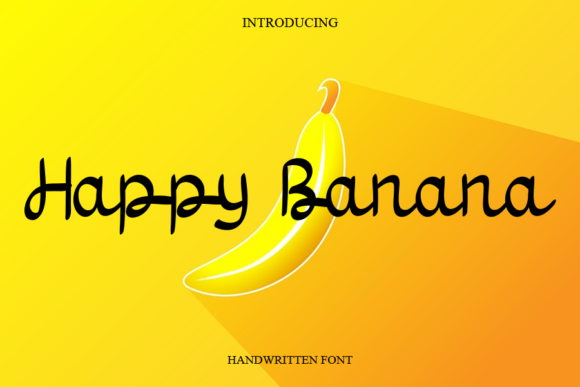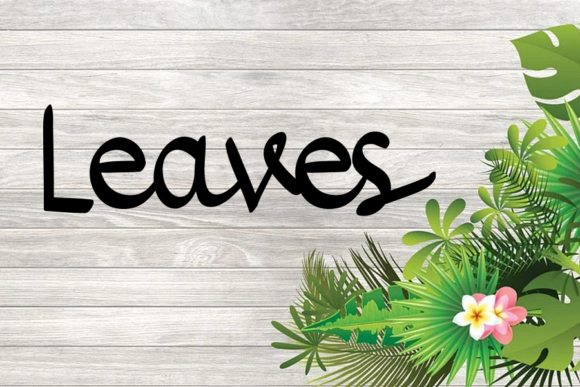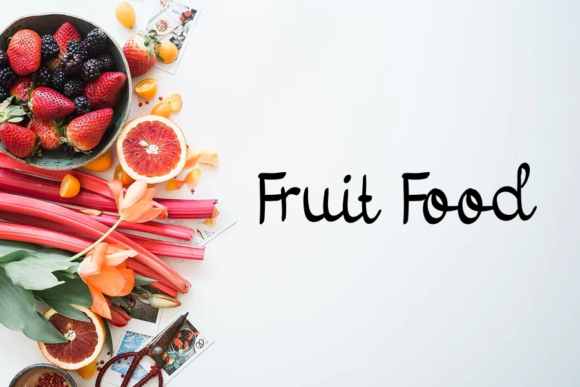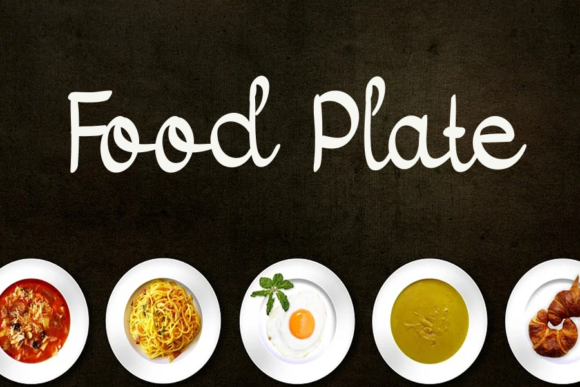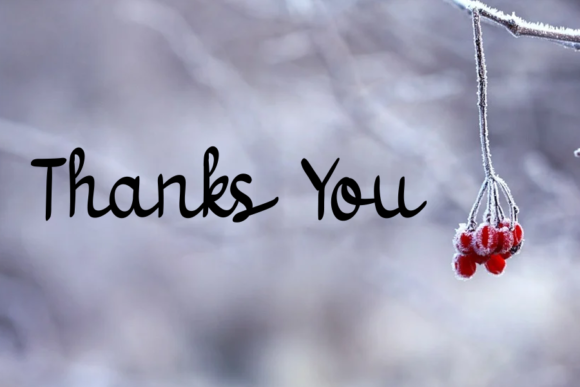
About Happy Banana Font
Happy Banana is a lovely and timeless handwritten font. It is the best choice for creating eye catching logos, branding and quotes. Every letter has a unique and beautiful touch, which will make your design come alive!